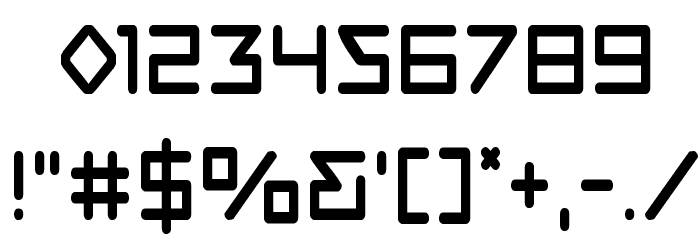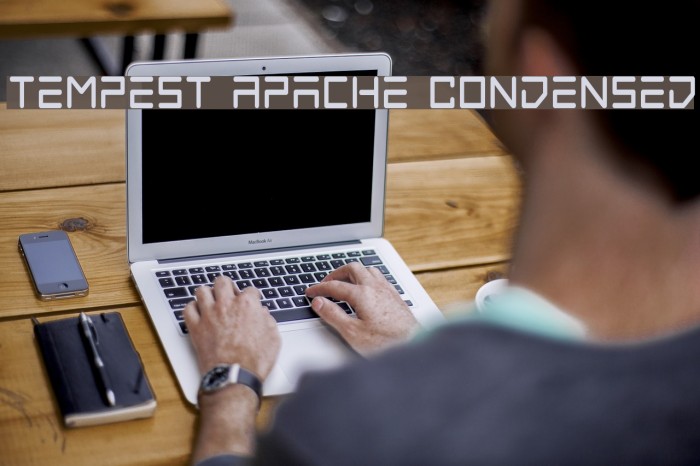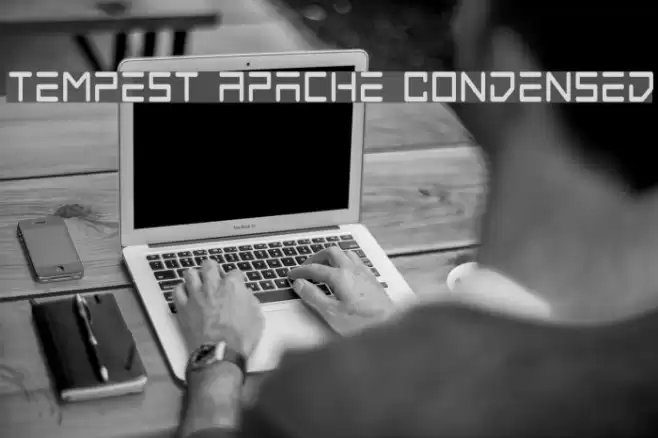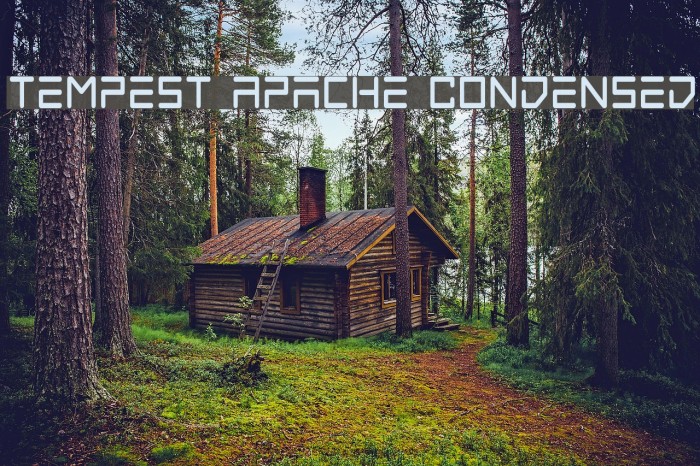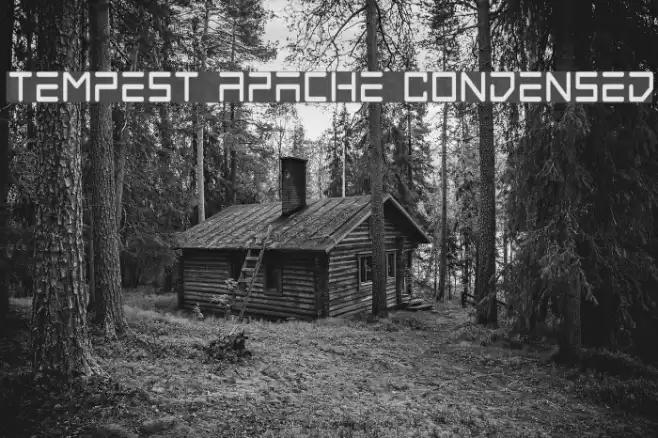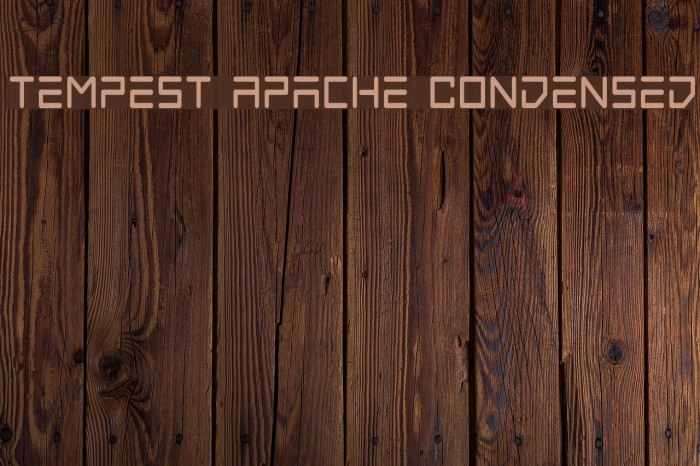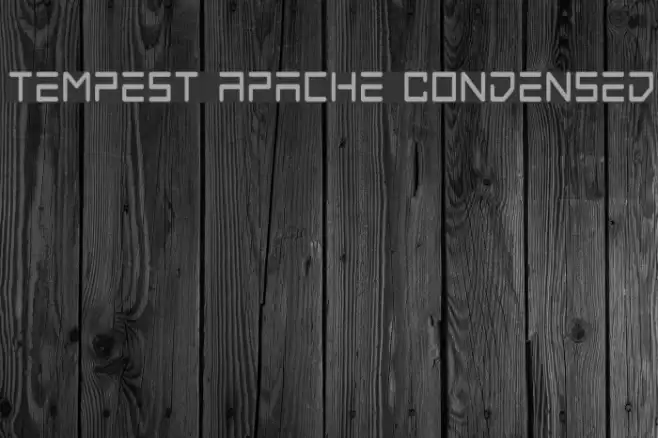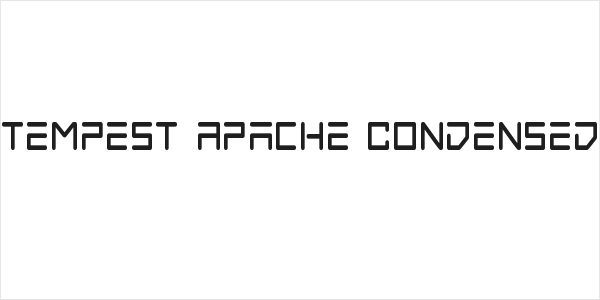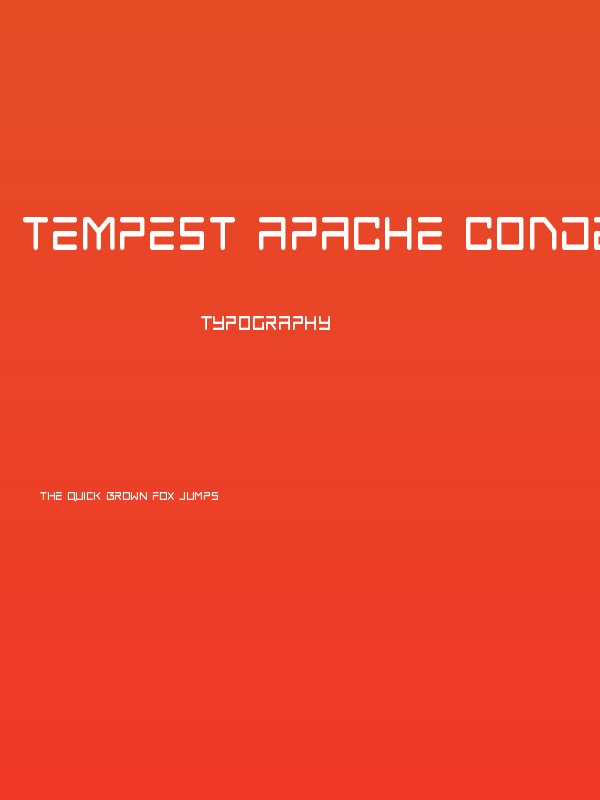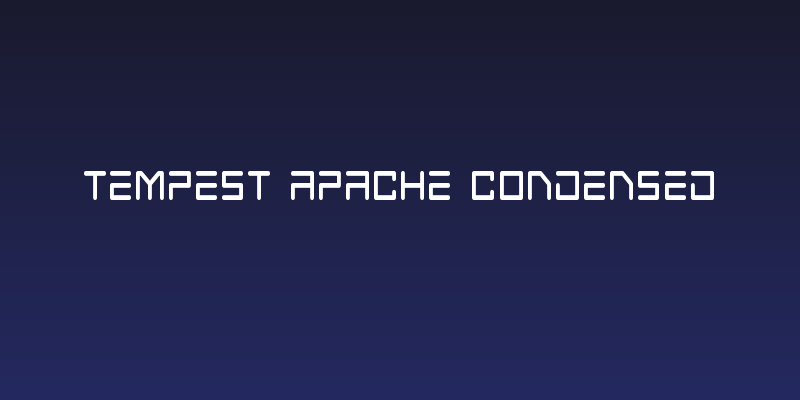
Tempest Apache Condensed Font
Tempest Apache Condensed Description
This font features a futuristic and geometric design with a condensed structure. The characters are composed of clean, straight lines and sharp angles, giving it a modern and technical appearance. The uniformity in stroke width across all characters contributes to a cohesive and streamlined look. The uppercase and lowercase letters maintain a consistent style, with the lowercase being slightly smaller in height. The numerals are distinct and easily readable, matching the overall aesthetic. Special characters are included, maintaining the same angular and structured design.